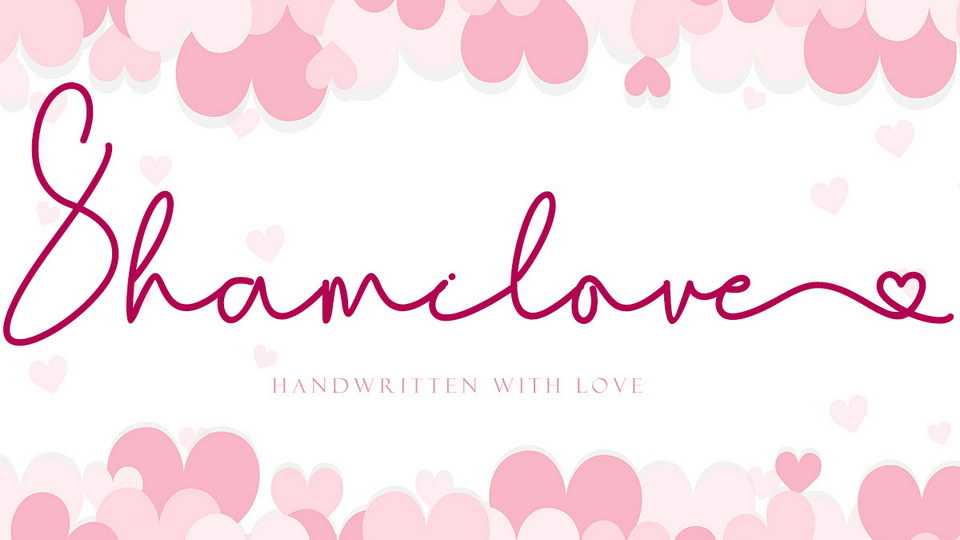
Download Shamilove font, a very beautiful and romantic typeface. Shamilove font is very easy to use with a heart-shaped swash, so it will add to the beauty of this font.